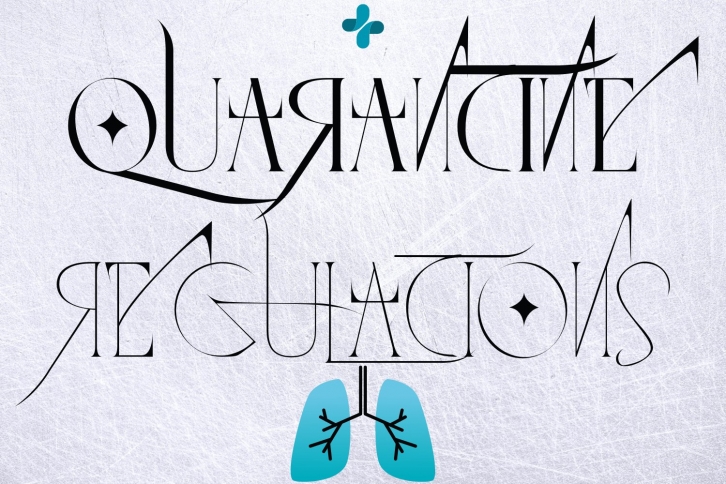
QUARANTINE REGULATIONS is a trendy and unique font with an authentic style. It was designed by 177Studio and it's a great choice for creative people who need such a font. It was released on August 9, 2022 and the file size is 21.52 MB. QUARANTINE REGULATIONS will add an organic vibe to any design idea!